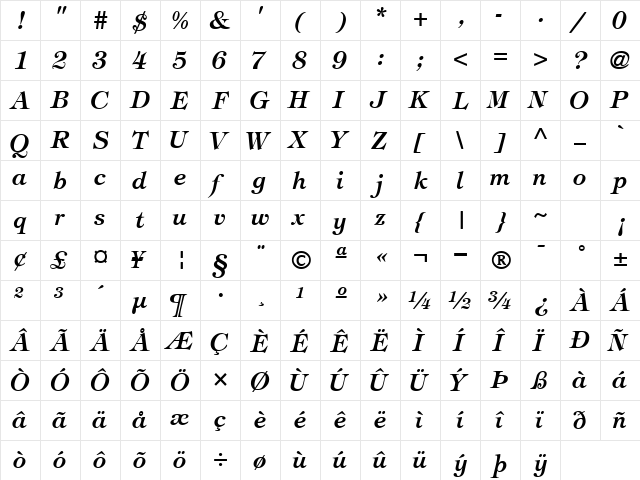
SophisticateSSK SemiBoldItalic Font Preview
Design Context for SophisticateSSK Typeface
SophisticateSSK offers clean, dependable letterforms without strong stylistic allegiance, making it a practical choice for designers who need flexibility. The dynamic lean of this cut emphasises speed and emphasis in any layout. The heavy weight commands attention and anchors typographic hierarchies.
Pro Tip: Try SophisticateSSK for annotation and caption copy alongside an upright companion — the contrast in angle creates a dynamic but ordered typographic system.